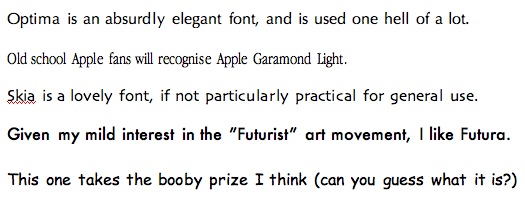
Well I am a windows user and love the font in the Finder bar in Macs...
But I like Myriad Pro, Lucida MAC, Lucida Grande, Eyechart, and Trebuchet MS.
Serif - Garamond Pro
Sans - Myriad Pro
On windows (or... stuff I need to be compatable)
I use Century Gothic for excel and garamond regular (yuck, but eh) for word. Century Gothic is less readible than arial, but at least it's stock with windows and I think the little boy has charm.
Lucida Grande is on my fallen fonts list. It used to be my favorite. Now I sorta avoid it.... except that I use it as my first choice font in all my web papges.
Definitely Georgia. I love Georgia for normal fonts, and then I have a special fondness for Papyrus.
For the main body of text I like Univers, Rotis Sans or Frutiger.
Also, at the moment I have a slight Clarendon obsession.
My current favorite:
Berthold Cosmos. Cool font.
I also love Myriad Pro: but do not use it; it's EVERYWHERE since Apple adopted it.
Just like Apple Garamond before that....
Oh well: most Graphics professionals follow Apple I suppose.
My friend created a font I use quite a bit: it's a form of Stone and it is very pretty. 🙂
I have a sans font which I like best for both print and screen: Skia
I'm very much a fan of clean san-serifs, such as Helvetica, Univers (55 and 65), Avant Garde and Akzidenz Grotesk.
When it comes to serifs, well Bembo is probably my favourite, clean and elegant, and nicely weighted.
Geneva.
I have dreams at night about Geneva. It's off in the distance (9 point) in white with a simple blue background (kind of similar to the Panther Aqua desktop I suppose.) It calls out to me... "mad jew, mad jew..." and then it's voice trails off into the distance. It's a very disconcerting dream. I think I'm in love. 🙂
I'm no designer, but do take quite a bit of interest in typography. (To the point where at the moment, my entertainment on the bus is looking at shop signs and seeing if I know the name of the font…)
Anyway, my favourites are attached (Optima, Apple Garamond Light, Skia, Futura.)
As someone who works with fonts and deals with fonts, including other peoples fonts, just let me say that I hate them with the blinding white heat of a thousand suns. They are the bane of my existence. I have seen atrocities on typesetting caused by fonts. Gratuitous ligatures with poor kerning around them causing the read to come to a full stop mid word.
I have seen bastardized Helvetica's that claimed to be normal Helvetica, same name, same foundry, same id, radically different kerning. Indistinguishable in the software.
I've seen machines with 4 versions of Helvetica and which one you got was the luck of the draw.
Every time I hear "Its only Helvetica" I want to kill someone.
Then there are all the little specialized fonts. What do you mean you don't have ITC Franklin Belbo Gothic Extra Semi-Bold Oblique?
The closest thing there is to a font that I like is Monaco.
I am probably talking out my butt, so take this with a grain of salt.
Technically you are talking about Typefaces.
Fonts are the different styles within each typeface (bold, italics, condensed...).
I was a heavy user of the Helvetica typeface, especially the Helvetica condensed family.
My favorite typeface that I actually use is Futura. My overall favorite, which I don't actually use because it costs so damn much, is Meta (which Trebuchet MS resembles). Some of the new Microsoft fonts (Segoe, etc.) look really nice, too.
Two words: Comic Sans. 🙂 Hahahaha...just kidding.
May I point you in the direction of this site. 😉
Personally, you can't go wrong with Gill. And there's nothing nicer than a lowercase Baskerville 'g'...
Interstate Black Condensed and Interstate Bold Condensed have really grown on me. We use them at work. For a serif font, Globe Madison Light is nice.
Quick question
From what I understand there are only a limited amount of fonts that can be used in web browsers. So why is it that I (and others here) can use other fonts that are the typical "web fonts"?
Like Century Gothic isn't a typical "web font" (at least I don't think it is). So could you code in the HTML any font you want and if that person has that font on their system it can be viewed?